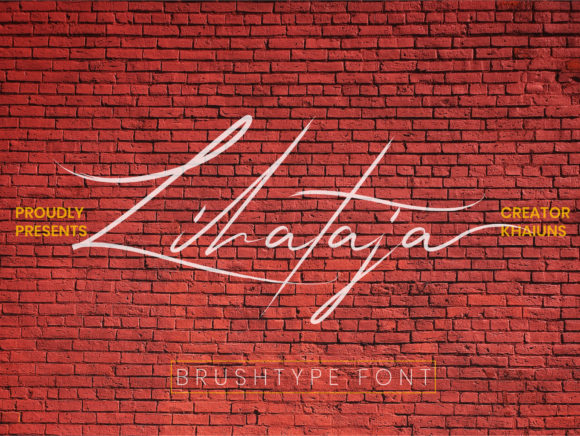
Unleash the Artistry Within: Embark on a Calligraphic Adventure with Lihataja Font
In the realm of typography, where letters dance and words take form, the Lihataja Font emerges as a captivating masterpiece, a symphony of elegance and flow. Crafted meticulously by the skilled hands of khaiuns, this script font embodies the essence of handwritten artistry, inviting you to explore a world of boundless creativity.
Lihataja's beauty effortlessly complements wedding invitations, transforming them into heirlooms of love. Its delicate strokes add a touch of sophistication to thank you cards, expressing gratitude with a personal touch. Quotes, greeting cards, logos, and business cards all come alive with Lihataja's enchanting charm. With its versatility, this font becomes an indispensable tool for any designer, whether they're creating heartfelt messages or crafting professional designs.
Experience the allure of Lihataja's varying baseline, a symphony of ascenders and descenders that mimic the natural flow of handwriting. Smooth lines caress each letterform, creating a sense of fluidity and grace. Gorgeous glyphs, meticulously designed, add an air of uniqueness to your creations. Stunning alternates provide endless possibilities for customization, allowing you to tailor your designs to perfection.
Lihataja is more than just a font; it's a gateway to self-expression, a vessel for your creative spirit. Its elegant curves and flowing lines inspire a sense of wonder, inviting you to explore new horizons and let your imagination soar. With Lihataja, the boundaries between digital and hand-drawn art dissolve, creating a harmonious blend of technology and artistry.
Join the creative revolution and embrace the allure of Lihataja. Let your designs bloom with elegance, your words dance with grace, and your imagination take center stage. Discover the limitless possibilities that await you with Lihataja, where calligraphy and digital artistry converge in an awe-inspiring symphony of creativity.